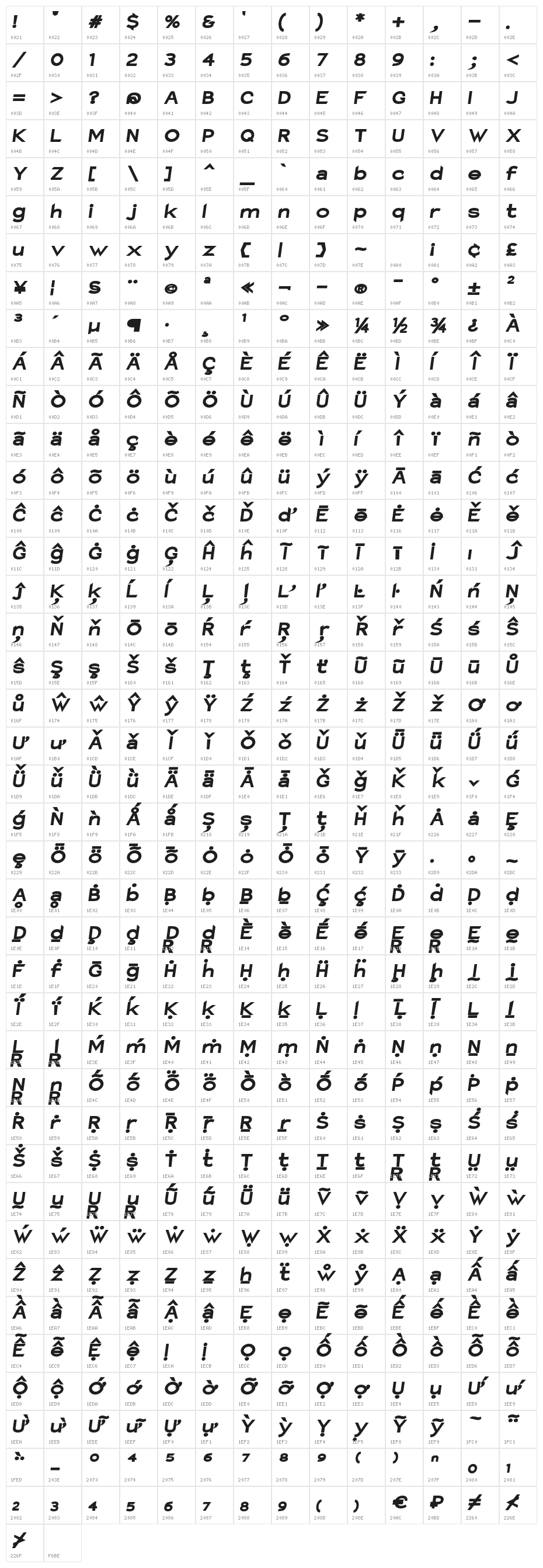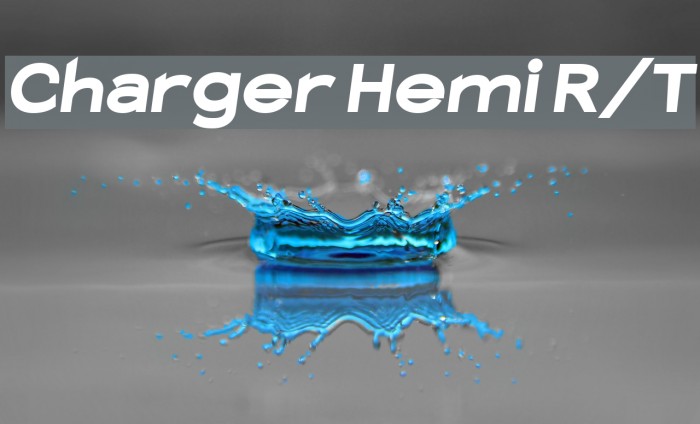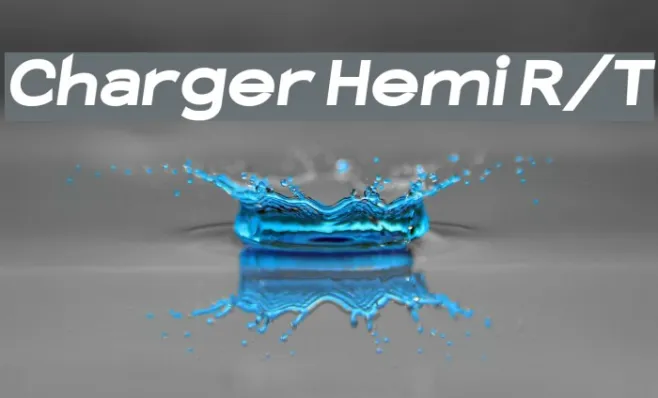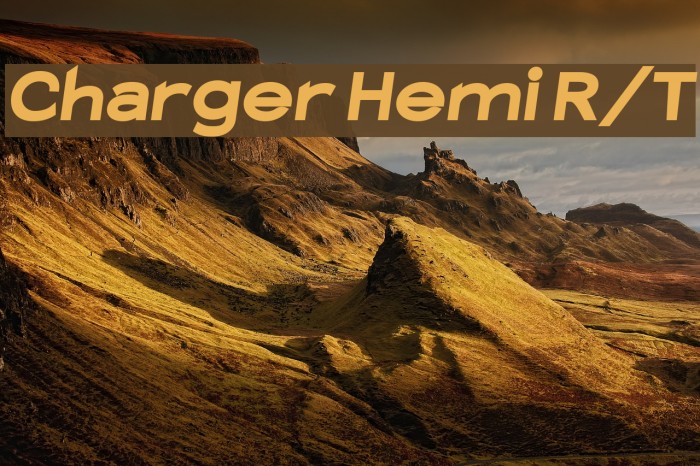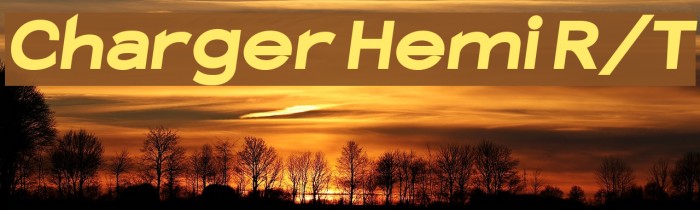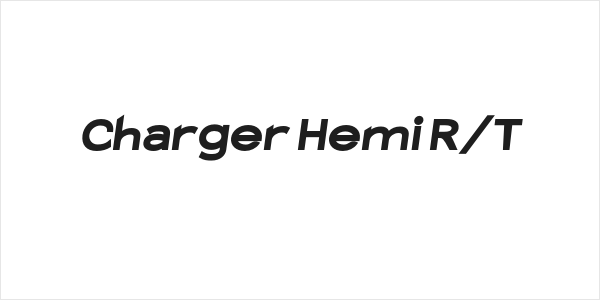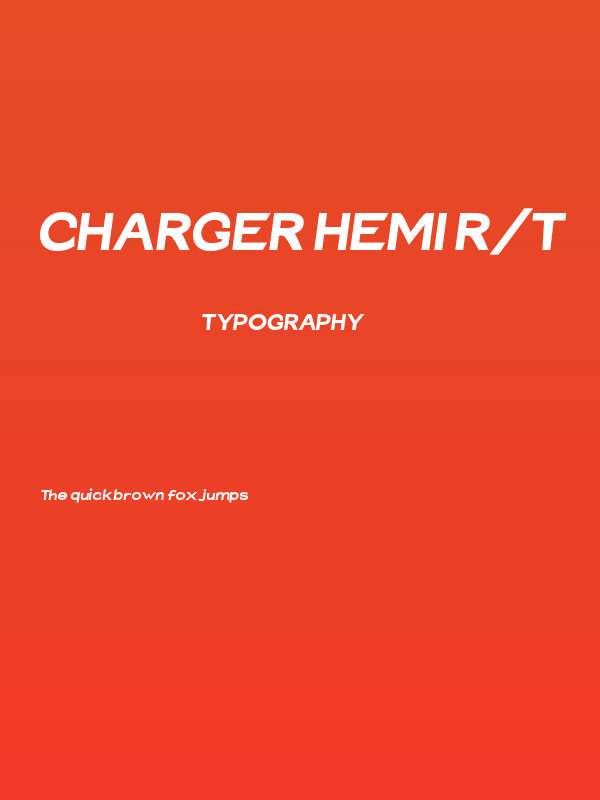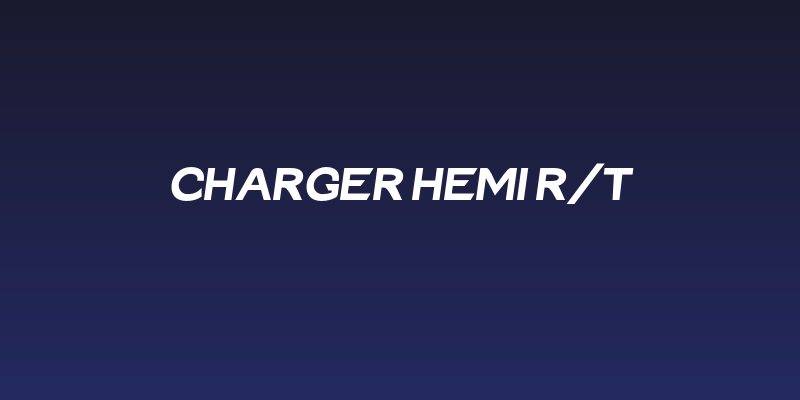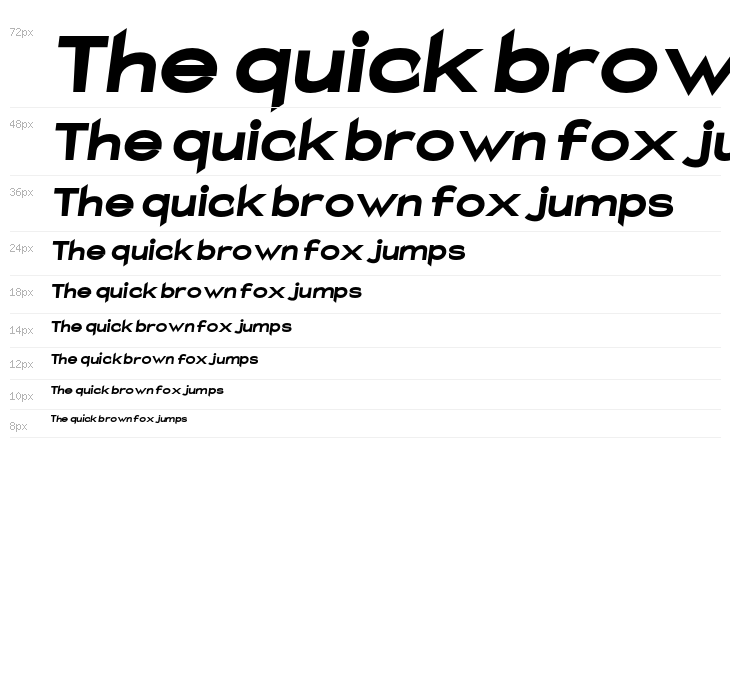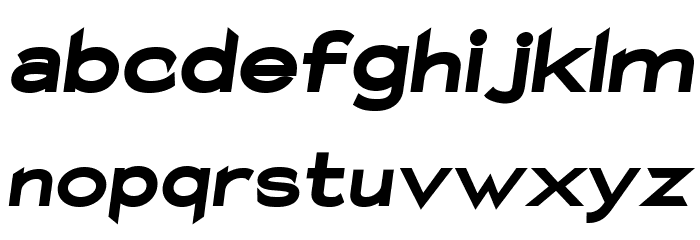
Charger Hemi R/T Font
Charger Hemi R/T Description
This font features a bold and dynamic style with a slight italic slant, giving it a sense of motion and energy. The characters are well-defined with a modern aesthetic, characterized by clean lines and a uniform stroke width. The uppercase letters are strong and impactful, while the lowercase letters maintain a consistent style that complements the uppercase. The numerals are clear and easy to read, making them suitable for various applications. Special characters are included, maintaining the overall design consistency. This font is versatile, suitable for both digital and print media, and can be used to create a striking visual presence.
| Use Case | Headlines, Logos, Advertisements |
| Proposed Projects | Ideal for automotive branding, sports team logos, dynamic advertisements, and modern web design. |